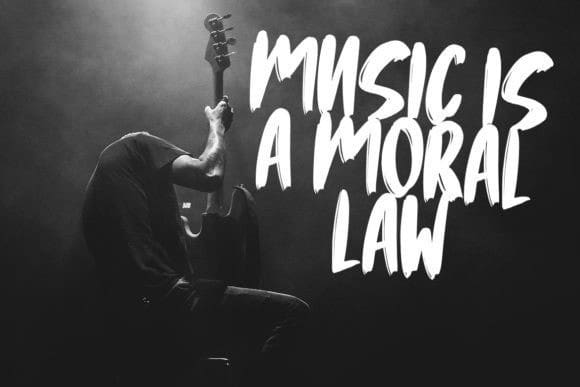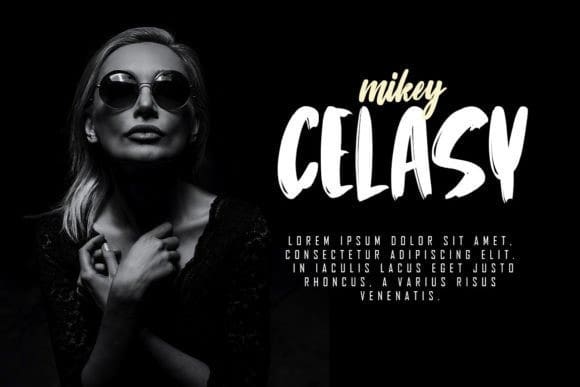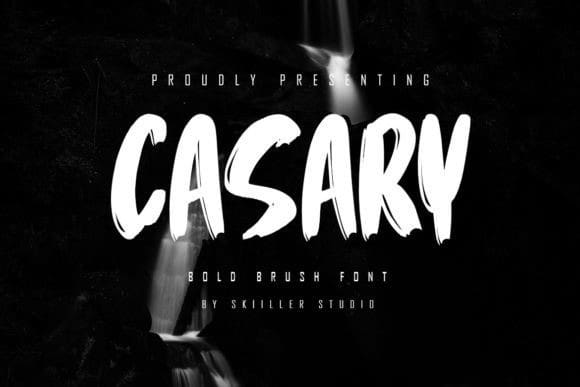
Casary Brush Font
Casary Brush Font is a modern and brushed handwritten font crafted to give your headlines and logotype projects a stylish touch. This font reads as strong, confident, and dynamic. It can add tons of urban character to your designs.